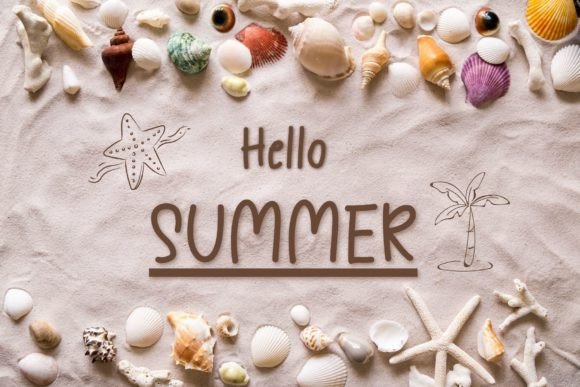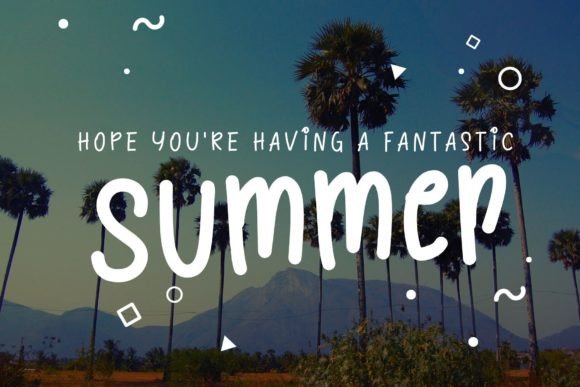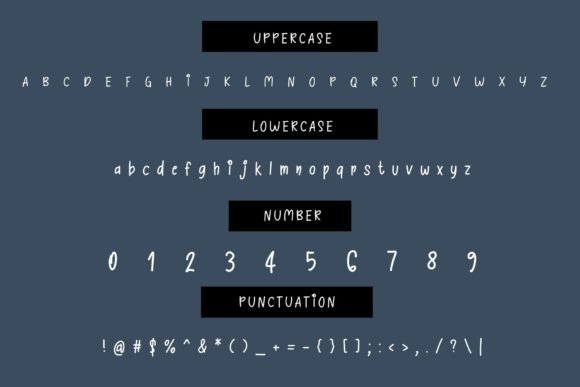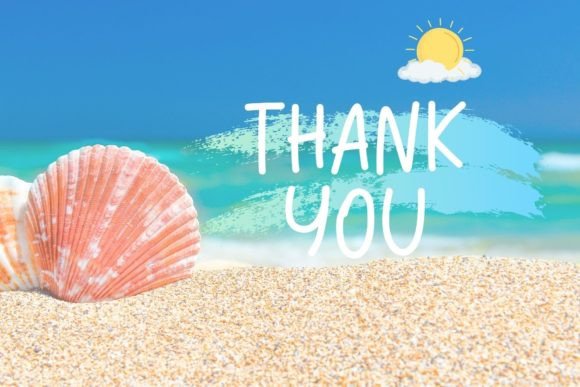
The Emersyn Font: A Cute Handwritten Delight for Designers and Crafters
I’ll never forget the design project that led me to discover the Emersyn font. I was working on a branding project for a children’s party planning service, and I needed a font that was playful, yet elegant. After hours of searching, I stumbled upon Emersyn, and it instantly became my go-to choice. In this article, I’ll share my experience with Emersyn, its features, and how to make the most of it in your designs.
An Honest Review of Emersyn Font
So, what makes Emersyn special? Here are some things I love about this font:
- ✨ Playful and Authentic: Emersyn embodies a sense of playfulness and authenticity, making it perfect for projects that require a personal touch.
- ✅ Versatile: This font can be used for a wide range of projects, from blog posts and logos to invitations and greeting cards.
- 💕 Easy to Read: Emersyn is clear and easy to read, even at smaller font sizes.
While Emersyn is an excellent font, it’s not without its quirks. Here are a few things to keep in mind:
- 🤔 Limited Formality: Emersyn is a handwritten font, so it may not be the best choice for projects that require a high level of formality.
- ⚠️ Overuse: As with any font, using Emersyn excessively can make your design look cluttered and unprofessional.
A Practical Guide to Using Emersyn Font
- Experiment with OpenType features, such as Stylistic Alternates and Glyphs, to add visual interest to your text.
The Backstory of Emersyn Font
Emersyn was designed by a talented typographer who wanted to create a font that was both playful and elegant. Inspired by the beauty of handwritten script, the designer crafted Emersyn to be a versatile font that could be used for a wide range of projects. With its unique blend of playfulness and sophistication, Emersyn has become a favorite among designers and crafters.
| What type of projects is Emersyn best suited for? | Emersyn is perfect for projects that require a personal touch, such as blog posts, logos, branding, ads, invitations, and greeting cards. |
| Is Emersyn easy to read? | Yes, Emersyn is clear and easy to read, even at smaller font sizes. |
| Does Emersyn support OpenType features? | Yes, Emersyn supports OpenType features, such as Stylistic Alternates and Glyphs, which can add visual interest to your text. |
Overall, Emersyn is a wonderful font that’s perfect for designers and crafters who want to add a personal touch to their projects. With its playful and authentic feel, Emersyn is sure to become a favorite in your design arsenal.